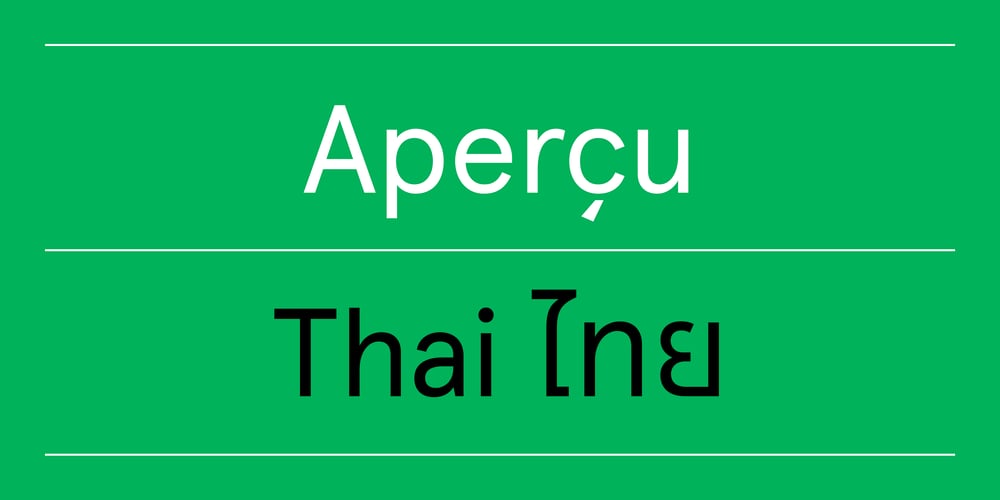
Apercu Thai Font Family was designed by Colophon Foundry and published by Colophon Foundry. Apercu Thai contains 4 styles and family package options. Aperçu Thai is a modern loopless style based on geometric shapes with a slight calligraphic influence drawn from its Latin counterpart. While the overall design is regulated by geometric shapes, individual letterforms still contain nuances that add a contemporary flavor.Aperçu Thai is available in four weights — Light, Regular, Medium, Bold. Aperçu is available to license in four flavors; Standard (‘STD’), Professional (‘PRO’), Arabic (‘ARABIC’) and Thai (‘THAI’). The Thai variant contains language support for Cyrillic and Greek scripts, alongside numerous OpenType features and stylistic alternates and full support for the Thai script.